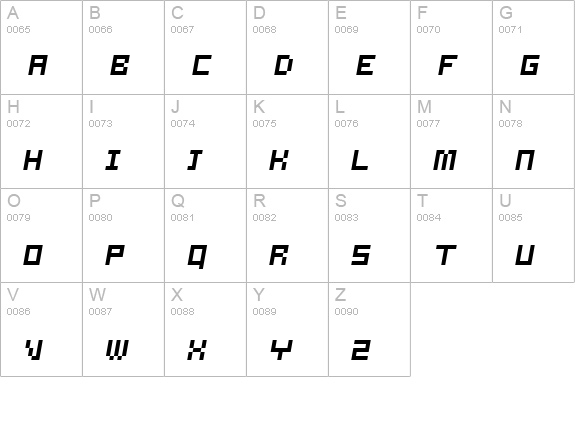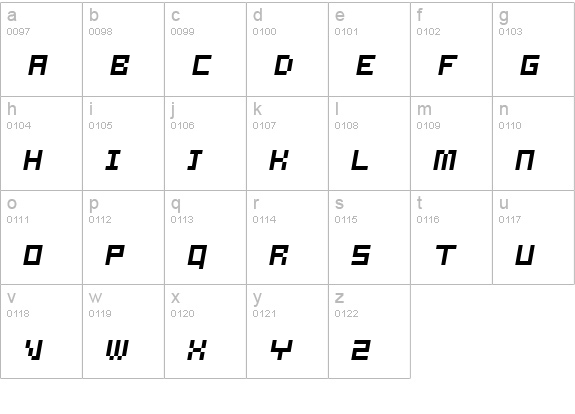
Samson Oblique Font Details
Samson Oblique is a distinctive, italic variant in the Samson typeface family \xE2\x80\x94 well suited to design and typography projects.
Introducing Samson Oblique, a bold and dynamic font that exudes confidence and modernity. With its sleek and slanted design, Samson Oblique is perfect for those seeking to make a strong and impactful statement. This font captures attention with its unique letterforms, which effortlessly combine sharp angles with gentle curves. Samson Oblique is a versatile font that can be used in a wide range of creative projects. Whether you are designing a striking logo, crafting eye-catching headlines, or creating stunning social media graphics, this font will elevate your work to new heights. Its bold and distinctive appearance ensures that your message stands out from the crowd. One of the best features of Samson Oblique is that it is available for free. This means that you can easily download and start using this font without any cost. Simply visit FontsMarket.com and discover the vast library of fonts available, including Samson Oblique. With just a few clicks, you can access this incredible font and unleash your creativity. The versatility of Samson Oblique extends to its compatibility with various design software and platforms. Whether you are a professional graphic designer, a marketing enthusiast, or an aspiring artist, you can seamlessly integrate this font into your workflow. It is compatible with popular software such as Adobe Photoshop, Illustrator, InDesign, and many more. Adding a touch of Samson Oblique to your designs instantly enhances their visual impact. The clean lines and contemporary feel of this font make it suitable for a wide range of themes and styles. From fashion and beauty to technology and corporate branding, Samson Oblique adapts effortlessly and creates a lasting impression. With its bold presence and effortless style, Samson Oblique is the font that brings your designs to life. Download it for free at FontsMarket.com and embark on a creative journey that will captivate and inspire. Let Samson Oblique be the secret weapon in your design arsenal, empowering you to create breathtaking visuals that leave a lasting impression.